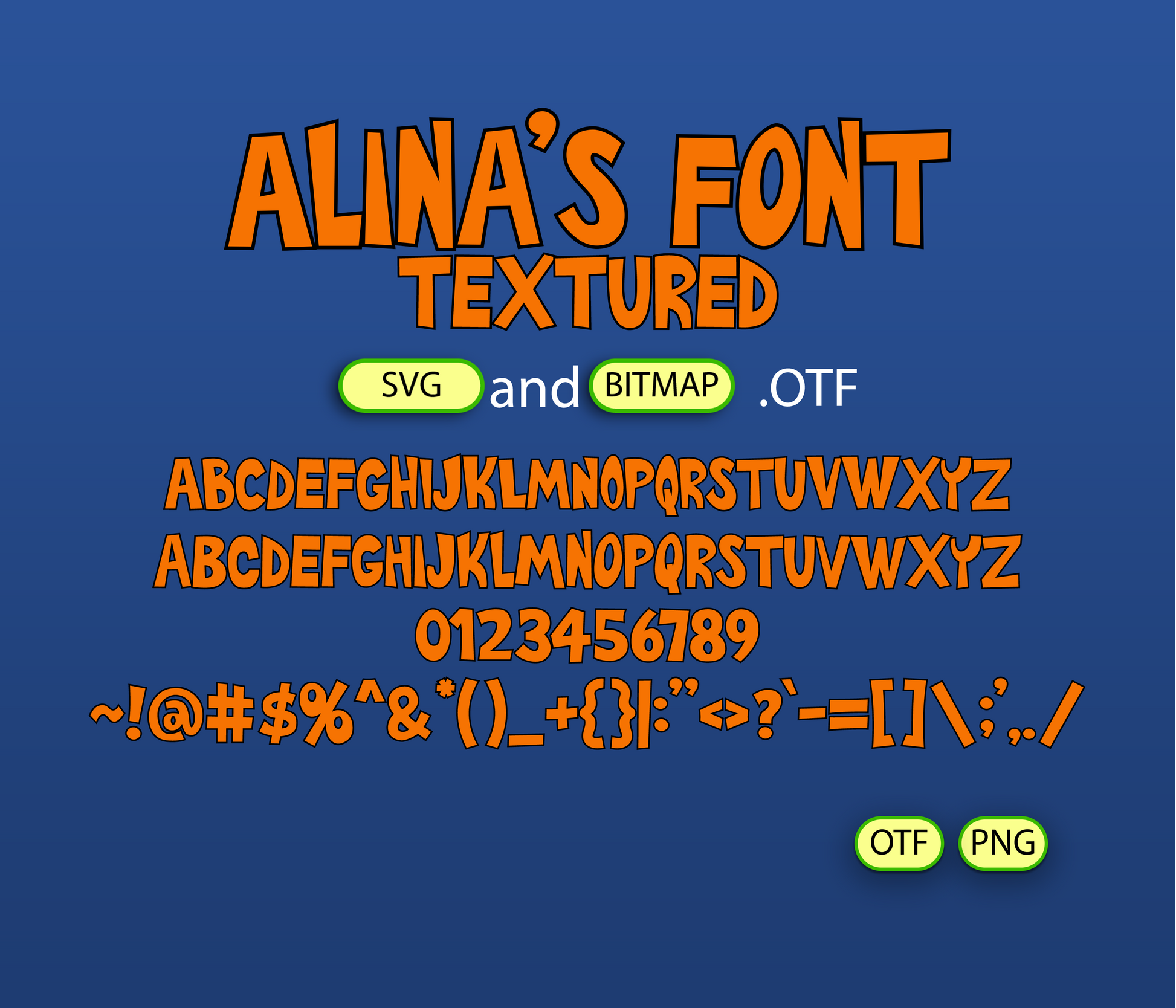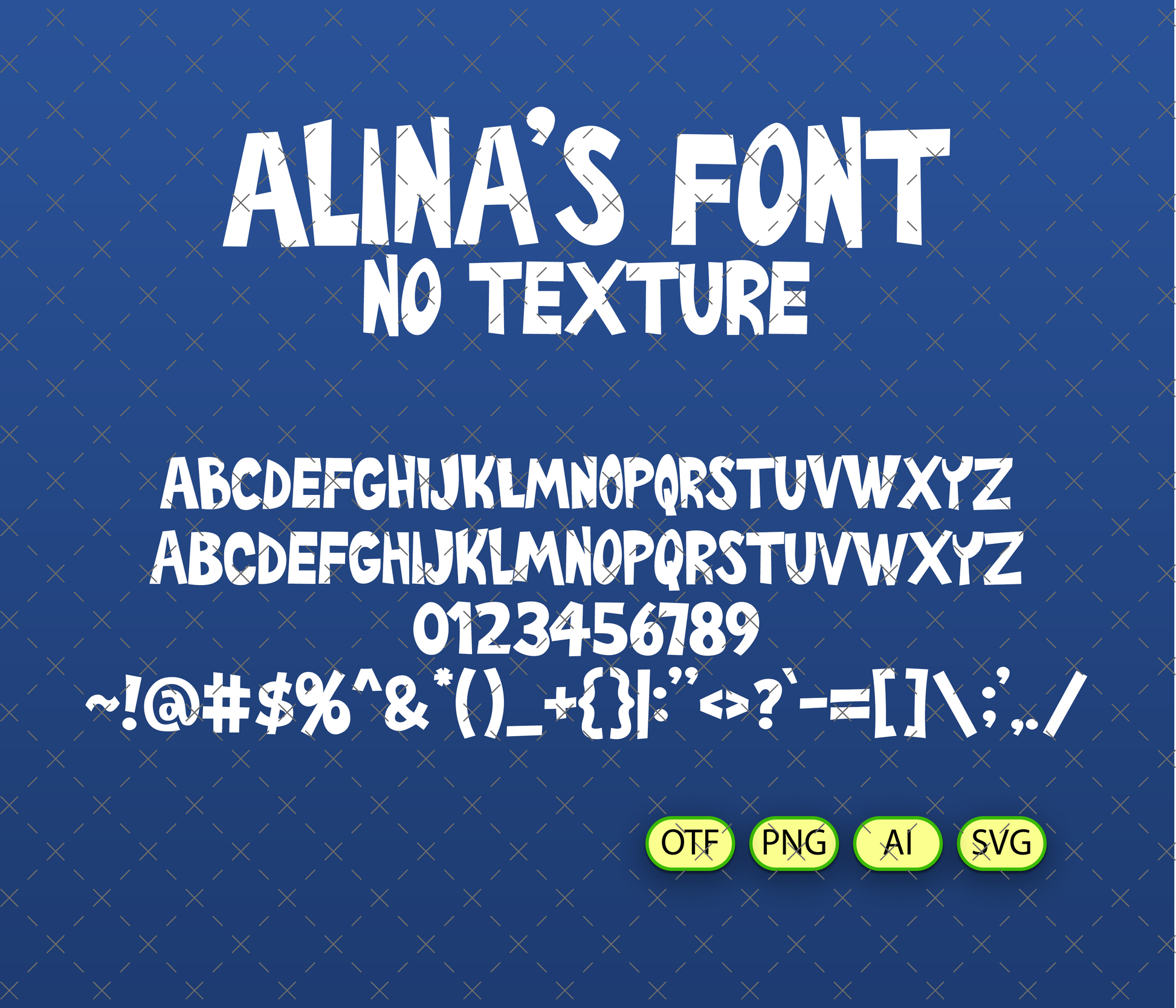
Pompadour Power Font Textured
Step into the flashy world of overconfident antics with our Pompadour Power Font Textured, capturing the essence of exaggerated bravado and slapstick humor adventures. Perfect for vintage cartoon enthusiasts, celebration coordinators, media producers, and design specialists, this font brings the striking, comedic character of inflated ego tales to your projects. Create attention-grabbing invitations, commercial goods, or web content with the amusing presence of self-proclaimed heartthrob narratives.
Bold Typography for Nostalgic Design & Humorous Projects
Our Pompadour Power Font Textured features commanding, stylized letterforms with retro surface patterns reflecting the world of boastful animated figures and casual hangout environments.
- Event Promotions: Create attention-grabbing invitations, displays, and promotional materials for throwback celebrations, animation fan gatherings, and social events that capture the spirit of comedic cartoon entertainment
- Merchandise Design: Perfect for apparel, wall prints, adhesive graphics, and collectibles that showcase the striking aesthetic of overblown masculinity themes
- Digital Media: Enhance internet platforms, content channels, and social networks with humorous header designs and imagery that express the comedy of misguided confidence
- Creative Content: Add signature flair to fan illustrations, personality artwork, and imaginative projects inspired by slapstick ego chronicles
- Personal Projects: Bring sentimental vitality to memory albums, handcrafted items, and living space decorations inspired by the world of delusional charm figures
Our font pays tribute to the world of slapstick comedy sagas and decade-spanning animation culture, empowering your projects with its striking and comedic character. Whether crafting supporter materials, designing nostalgic products, or adding a humorous touch to personal projects, this font communicates the spirited essence of overconfident entertainment. Ready to inject flashy bravado into your creations? This font is your key to attention-grabbing, impactful design.